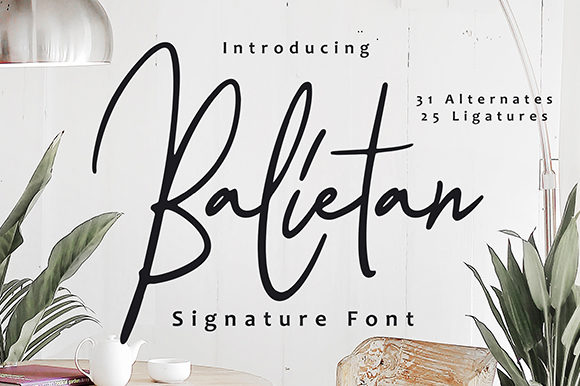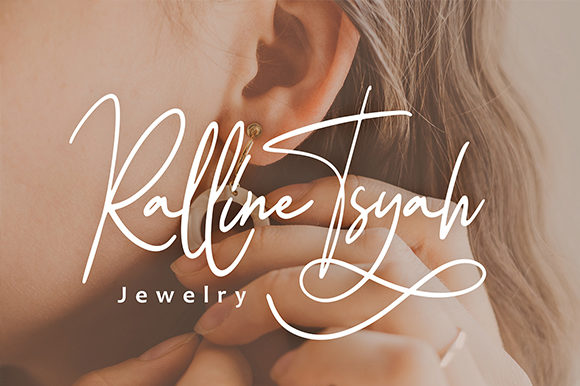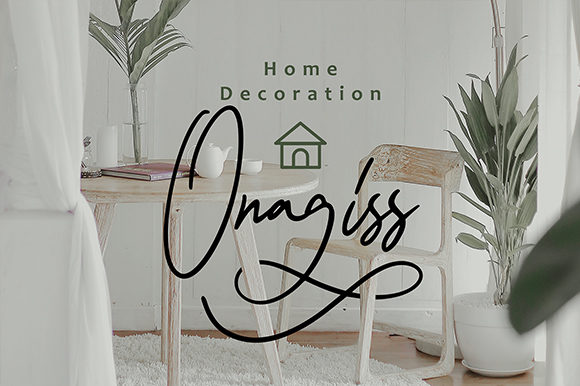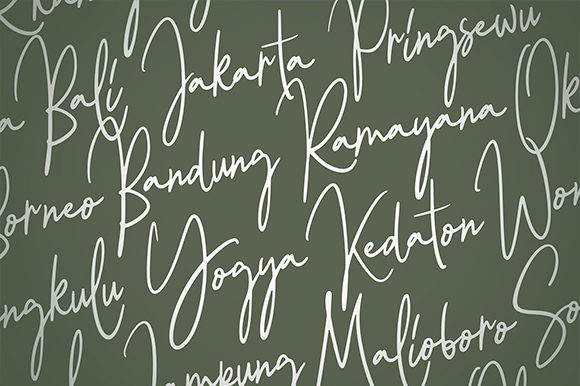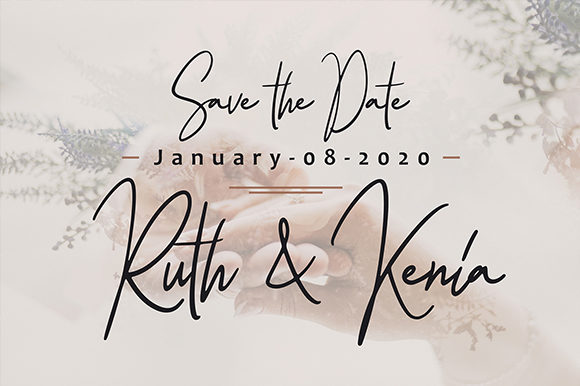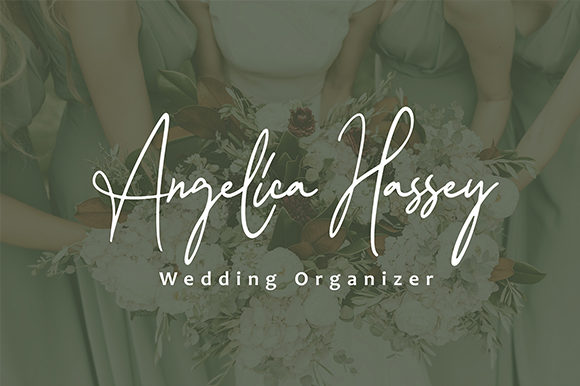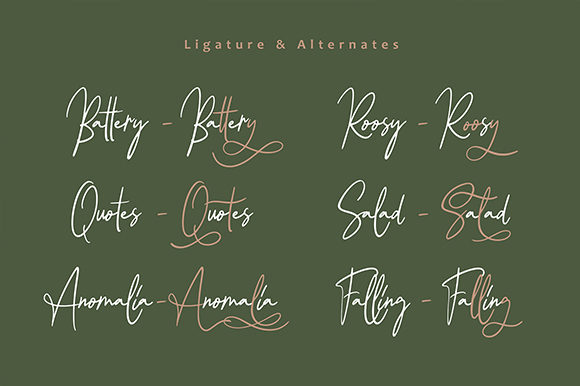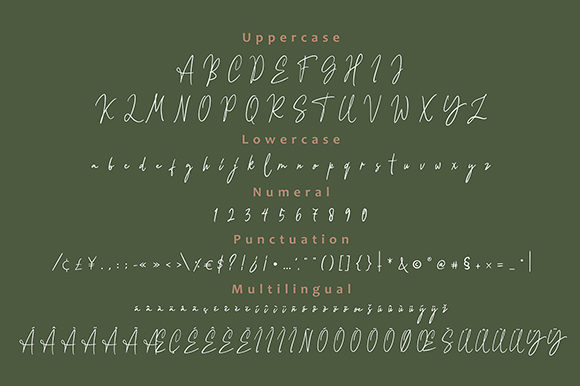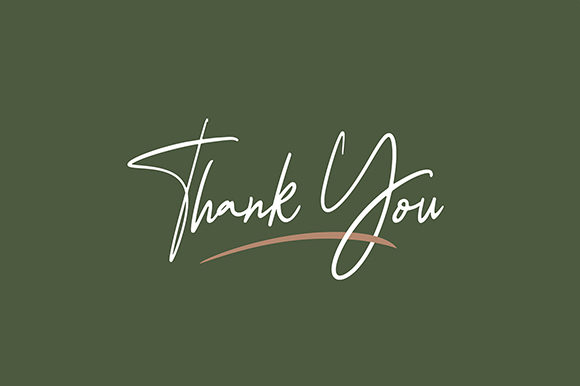
Balietan Font
About Balietan Font
Balietan is a fancy and modern script font with a flowing style. It is perfectly suited for a wide variety of projects!